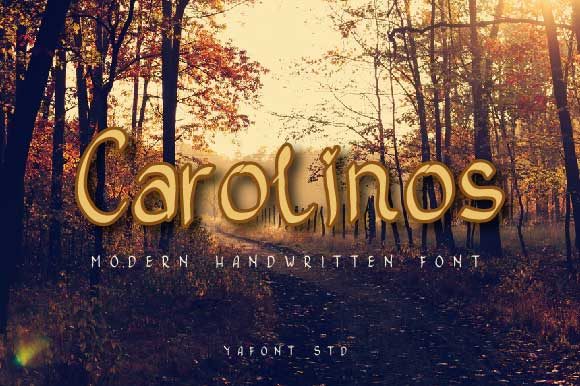
Unleashing Your Creativity with Carolinos Font
Have you ever stared at a blank page, desperately searching for the perfect font to bring your creative vision to life? We’ve all been there. The frustration of not finding the right words to express ourselves can be overwhelming. But what if I told you that there’s a font that can help you overcome this hurdle and take your creative ideas to new heights?
Enter Carolinos Font, a modern handwritten font designed to add a touch of elegance and sophistication to any design project. Whether you’re a graphic designer, digital artist, or writer, this font has the potential to elevate your work and leave a lasting impression on your audience. With Carolinos Font, you’ll be able to convey your message with clarity and style, making it a valuable tool for designers looking to make a statement.
Carolinos Font Key Features
- Font Size: Offers a range of sizes, from 12pt to 72pt, allowing for versatility in design applications.
- Resolution: Designed for high-resolution displays, making it ideal for use in digital media, including websites, mobile apps, and social media platforms.
- Unique Characteristics: Features a distinctive, elegant script style with intricate details, making it perfect for creating visually appealing and sophisticated designs.
- Language Support: Supports a wide range of languages, including Latin, Cyrillic, and Greek alphabets, making it a great choice for multilingual designs.
- Font Weight: Available in regular and bold weights, allowing designers to create a range of visual effects and emphasis in their designs.
Carolinos Font Review
Overall, I think Carolinos Font is a beautiful, elegant font that can be a great addition to many design projects. It has a ✨ sophisticated and refined feel that works well for high-end branding, luxury goods, or anything that needs a touch of class.
Here are some of the things that Carolinos Font does particularly well:
- ✨ Elegant and refined feel that’s perfect for high-end branding
- ✨ Well-suited for luxury goods or anything that needs a touch of class
- ✨ Good for use in headings, titles, and other prominent text
- ⚠️ Limited to a small range of weights and styles, which may limit its versatility
- ⚠️ May not be the best choice for text-heavy content, as it can be a bit difficult to read in smaller sizes
Overall, I think Carolinos Font is a solid choice for designers who need a high-end, elegant font for their projects. Just be aware of its limitations and use it judiciously to get the most out of it.
Tips for Getting the Most Out of Carolinos Font
Carolinos Font is a versatile font that works well for a variety of designs. Here are some tips for getting the most out of it:
- Use Carolinos Font for headings and titles to add a touch of elegance.
- Pair Carolinos Font with other fonts to create a unique and interesting typography combination.
Carolinos Font is suitable for a variety of designs, including:
- Editorial and publishing designs.
Alternatives to Carolinos Font
Montserrat is a modern sans-serif font designed for digital use. It is highly legible and versatile, making it suitable for a wide range of applications, from body text to headings. Montserrat is more geometric and clean compared to Carolinos Font, which has a more rounded and elegant feel.
Use Montserrat when you need a font that is highly legible and easy to read in digital formats. It is ideal for websites, mobile apps, and digital publications.
Open Sans is a clean and modern sans-serif font that is highly legible and versatile. It is designed to be used in a variety of contexts, from body text to headings. Open Sans is more neutral and clean compared to Carolinos Font, which has a more distinctive and elegant feel.
Use Open Sans when you need a font that is highly legible and easy to read in a variety of contexts. It is ideal for websites, digital publications, and marketing materials.
Lato is a modern sans-serif font that is highly legible and versatile. It has a clean and elegant feel, making it suitable for a wide range of applications, from body text to headings. Lato is more elegant and refined compared to Carolinos Font, which has a more rounded and approachable feel.